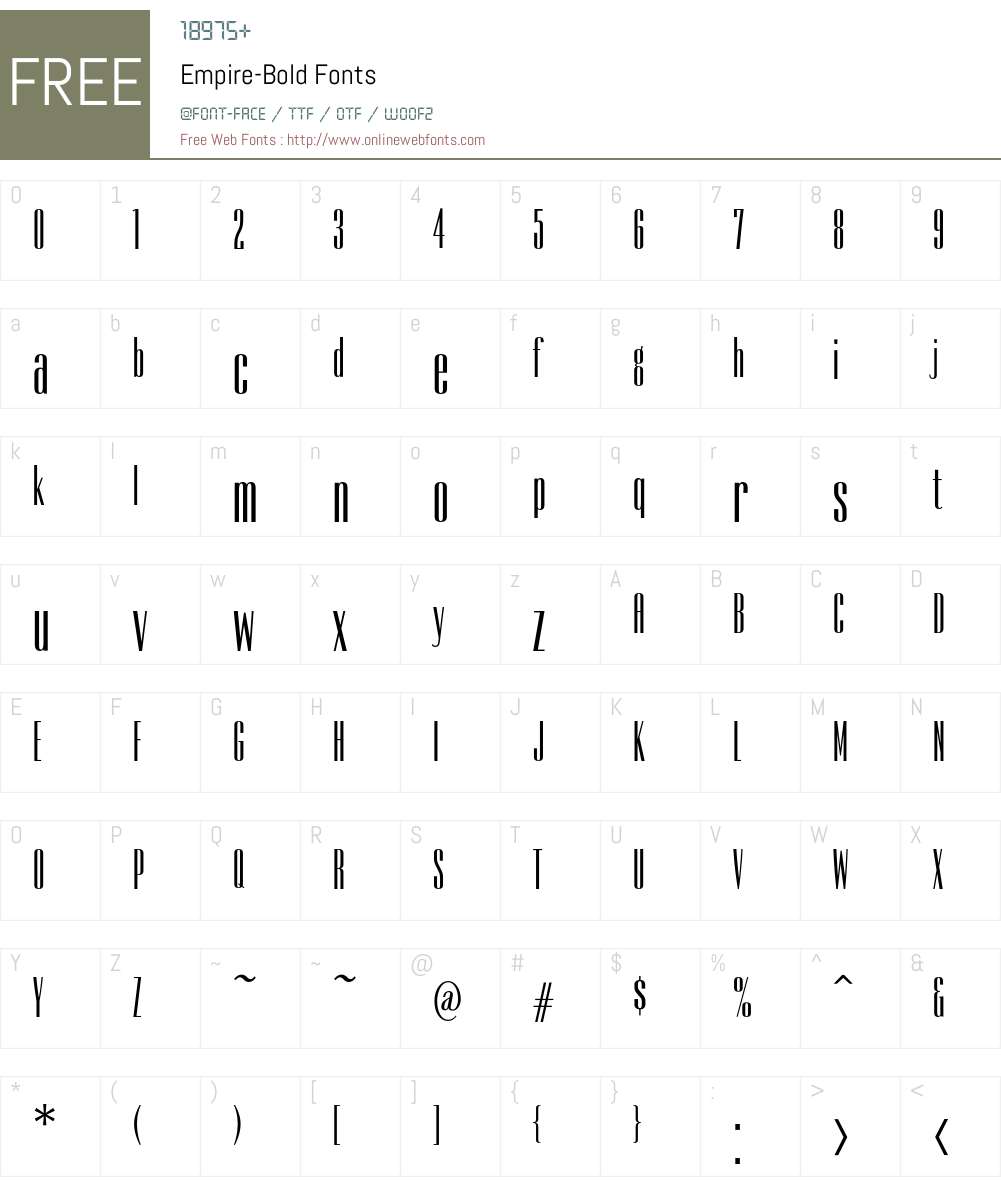
Emirates bold font is a basic, sans serif type font that can be. Empire bold by font bureau similar. Almost every font that we list on.
Empire Bold By Font Bureau Similar.